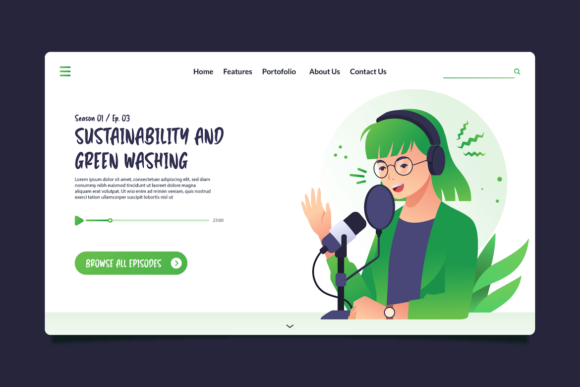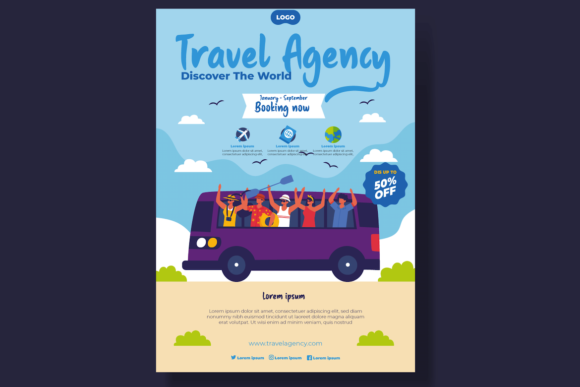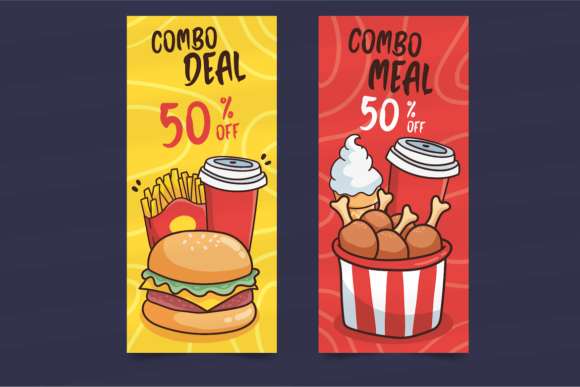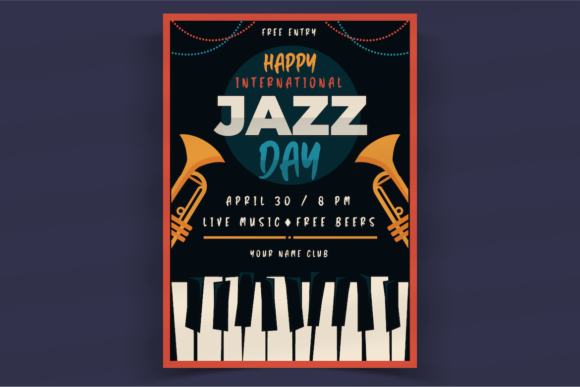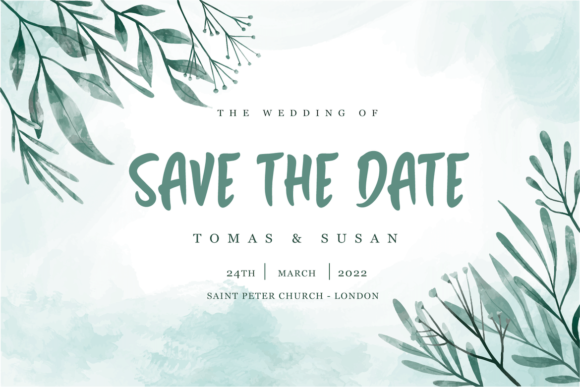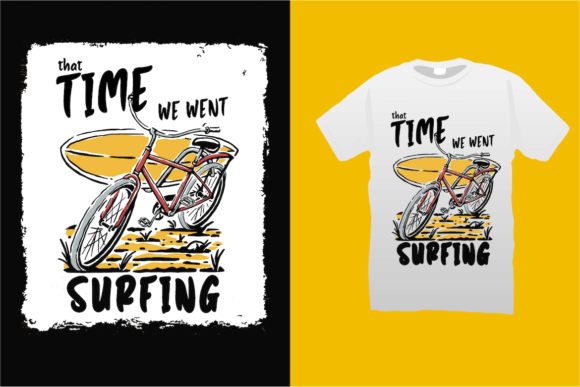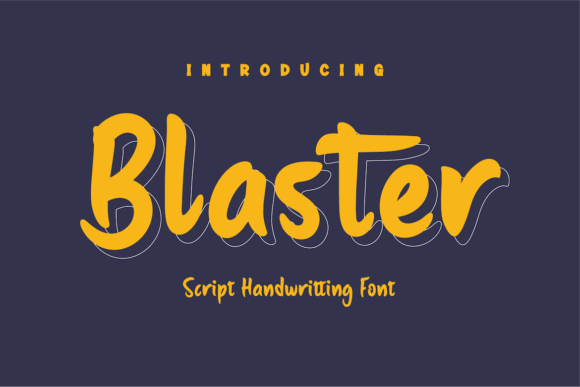
Introducing Blaster Font: The Ultimate Cool and Stylish Paint Brushed Handwritten Font
Are you a designer, crafter, or digital artist looking for a font that adds a touch of personality to your projects? Look no further than Blaster Font! This cool and stylish paint brushed handwritten font is perfect for a variety of creative endeavors, from crafting and digital designing to presentations and greeting cards making.
What Makes Blaster Font So Special?
Blaster Font is a unique and eye-catching font that is sure to make your projects stand out. Its paint brushed handwritten style gives it a personal and artistic feel that is perfect for adding a touch of whimsy and creativity to your designs. Whether you’re creating a handmade card, a digital graphic, or a presentation, Blaster Font is the perfect choice.
Blaster Font is a versatile font that is perfect for designers and crafters of all levels. Its easy-to-read style makes it perfect for use in a variety of projects, from handmade cards and invitations to digital graphics and presentations. Plus, its stylish and modern look makes it perfect for use in branding and marketing materials.
Use Blaster Font for:
- Crafting: Add a personal touch to your handmade cards, scrapbooking, and other craft projects with Blaster Font.
- Digital Designing: Use Blaster Font to add a touch of personality to your digital graphics, social media posts, and website designs.
- Presentations: Make your presentations stand out with Blaster Font’s unique and eye-catching style.
- Greeting Cards Making: Create personalized and stylish greeting cards for any occasion with Blaster Font.
Why Choose Blaster Font?
There are many reasons why Blaster Font is the perfect choice for designers and crafters. Here are just a few:
- Unique Style: Blaster Font’s paint brushed handwritten style is truly one-of-a-kind, making it perfect for adding a touch of personality to your projects.
- Easy to Read: Despite its artistic style, Blaster Font is easy to read, making it perfect for use in a variety of projects.
- Versatile: Blaster Font is perfect for use in a variety of creative endeavors, from crafting and digital designing to presentations and greeting cards making.
- High-Quality: Blaster Font is a high-quality font that is designed to deliver exceptional results.
Tips for Using Blaster Font
Here are a few tips for getting the most out of Blaster Font:
- Experiment with Colors: Blaster Font looks great in a variety of colors, so don’t be afraid to experiment and find the perfect hue for your project.
- Mix and Match: Try pairing Blaster Font with other fonts and styles to create a unique and eye-catching look.
- Use it for Headlines: Blaster Font is perfect for use in headlines and titles, where its bold and artistic style can really make an impact.
Blaster Font is a cool and stylish paint brushed handwritten font that is perfect for designers, crafters, and digital artists. Its unique style, easy-to-read design, and versatility make it the perfect choice for a variety of creative endeavors. Whether you’re crafting, designing, or presenting, Blaster Font is sure to add a touch of personality and style to your projects.